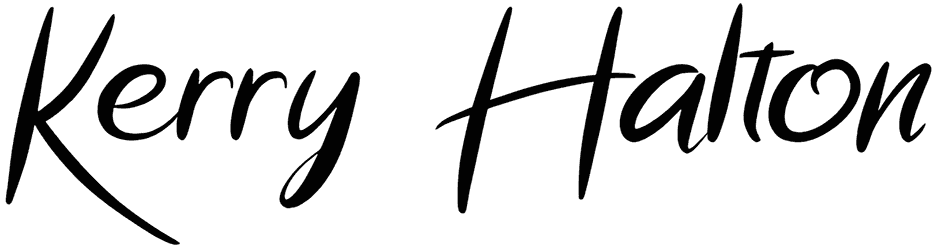
Kerry Halton Font
Create a new tone for your designs with Kerry Halton font, because it is a creative and modern brush font. You won’t find a better choice for targets like pub or restaurant menu design, daily care, signs for the shops, and much more. Our inventory provides you with a boatload of options.